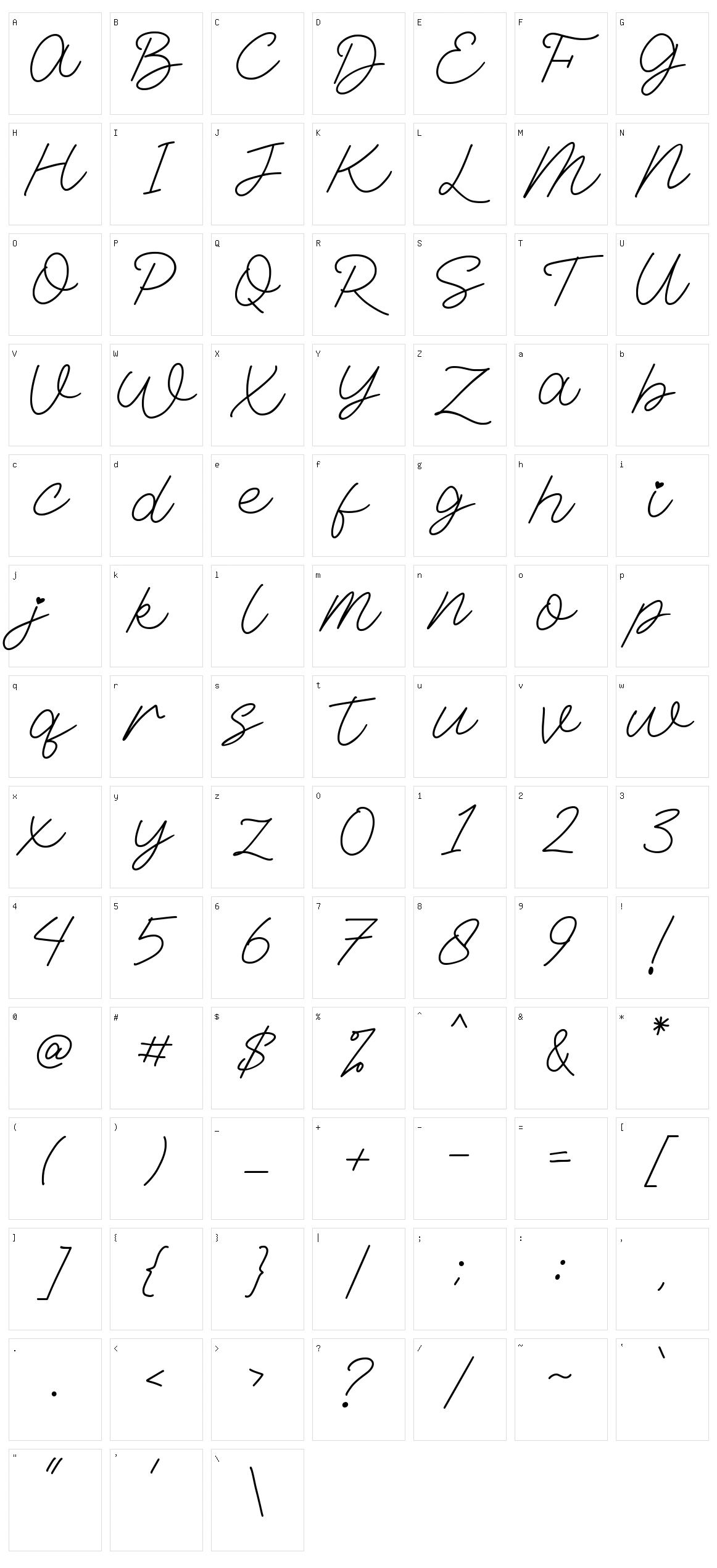
The free font Marnilla Signature is carefully designed by AEN Creative Studio, showcasing a thoughtful balance of creativity and usability and falls under the Script font style. When you download the ZIP file, it contains only 86.13 KB of font files, making it lightweight and quick to download. Please review the license details below to understand permitted usage and distribution rights. If license information is not available, we recommend using this font for personal projects only or contacting the author directly for commercial usage permissions.